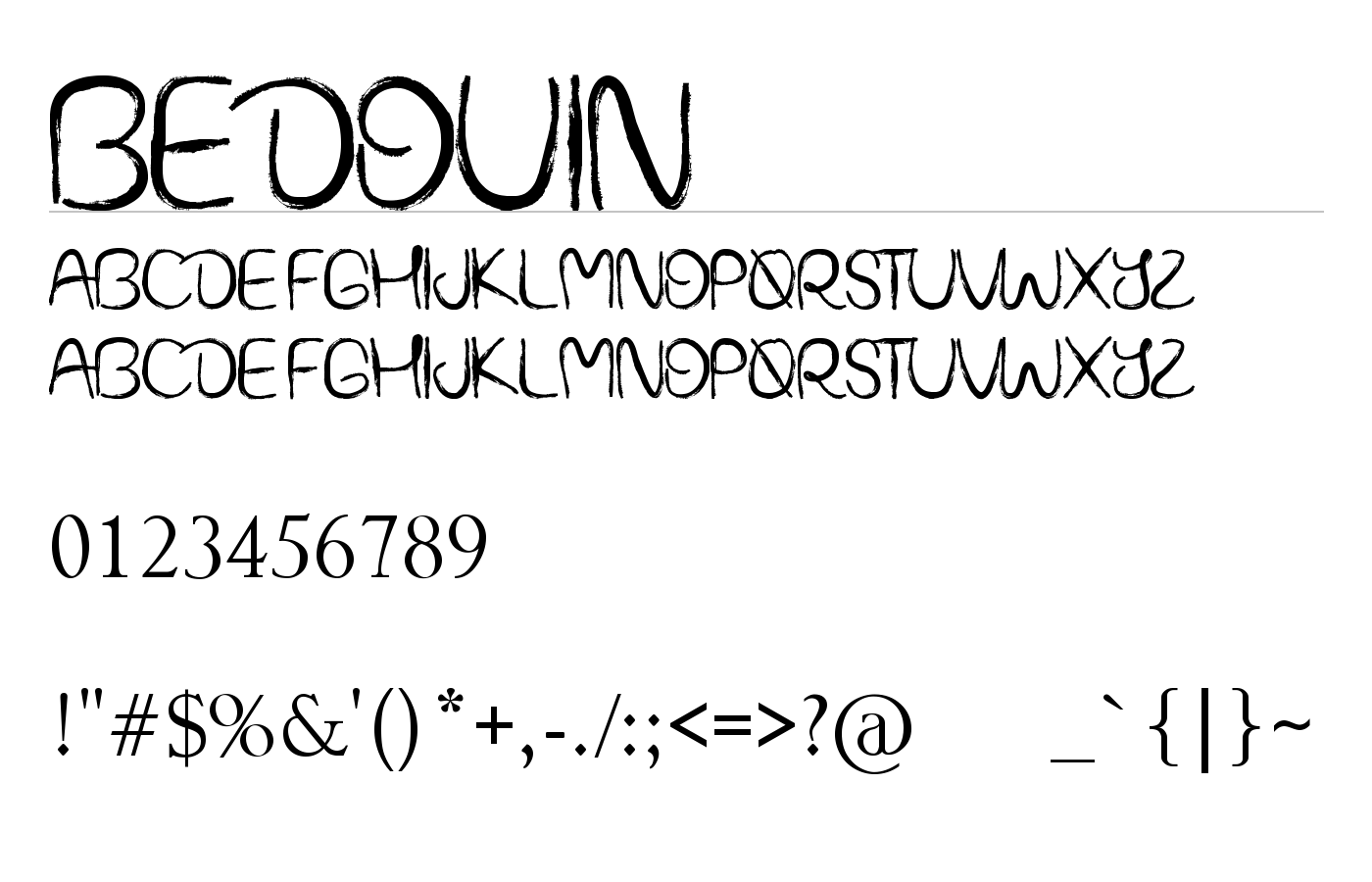
Bedouin is a unique handwritten sans serif font with a natural, textured brushstroke style that feels both organic and expressive. Its tall, slightly narrow letterforms and playful, irregular shapes give it a casual yet artistic personality, making it ideal for creative projects, branding, and headlines that want to convey warmth and individuality. The font’s distinctive rough edges and lively character add a handcrafted, friendly touch without sacrificing readability.
BEDOUIN Font
About BEDOUIN Font